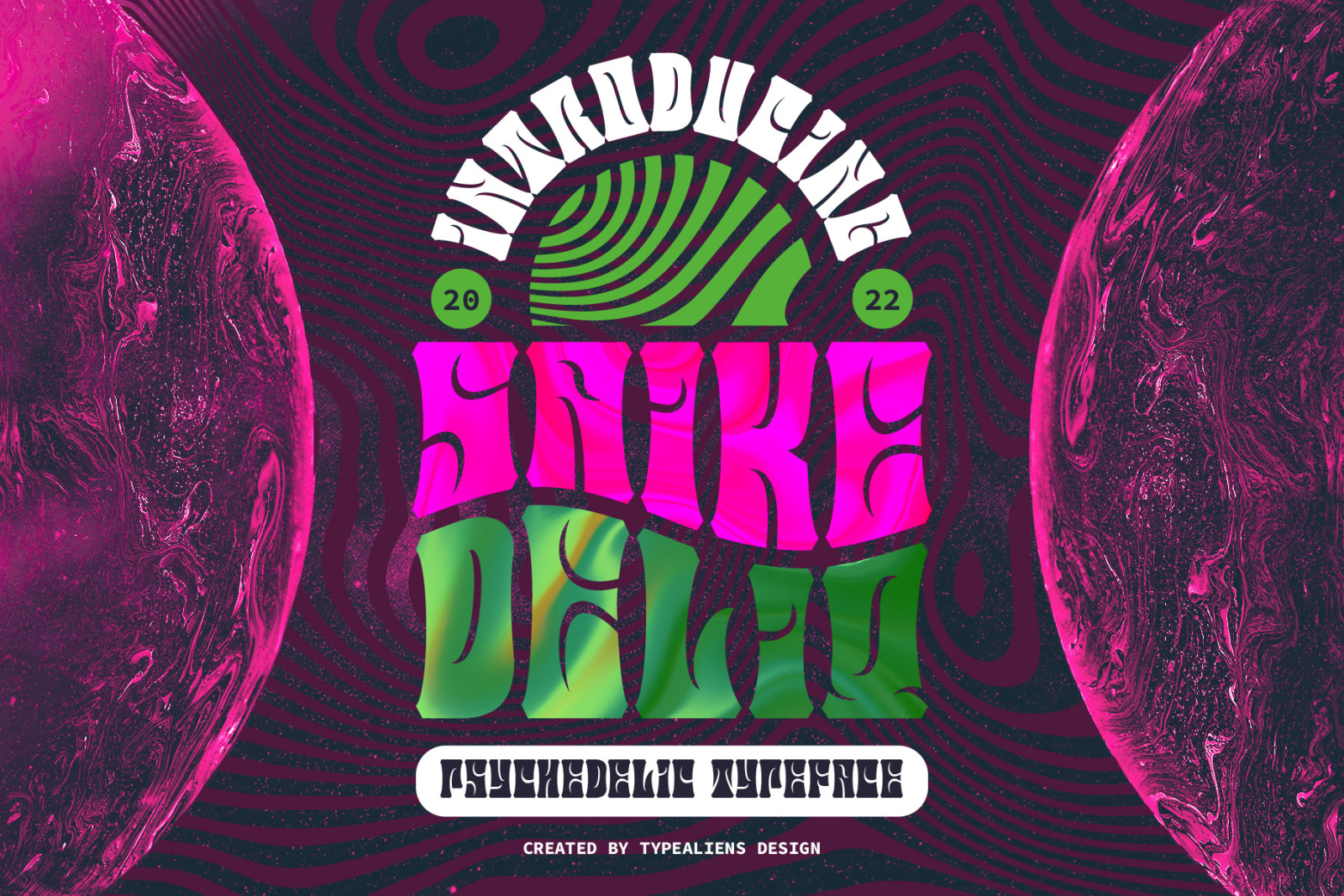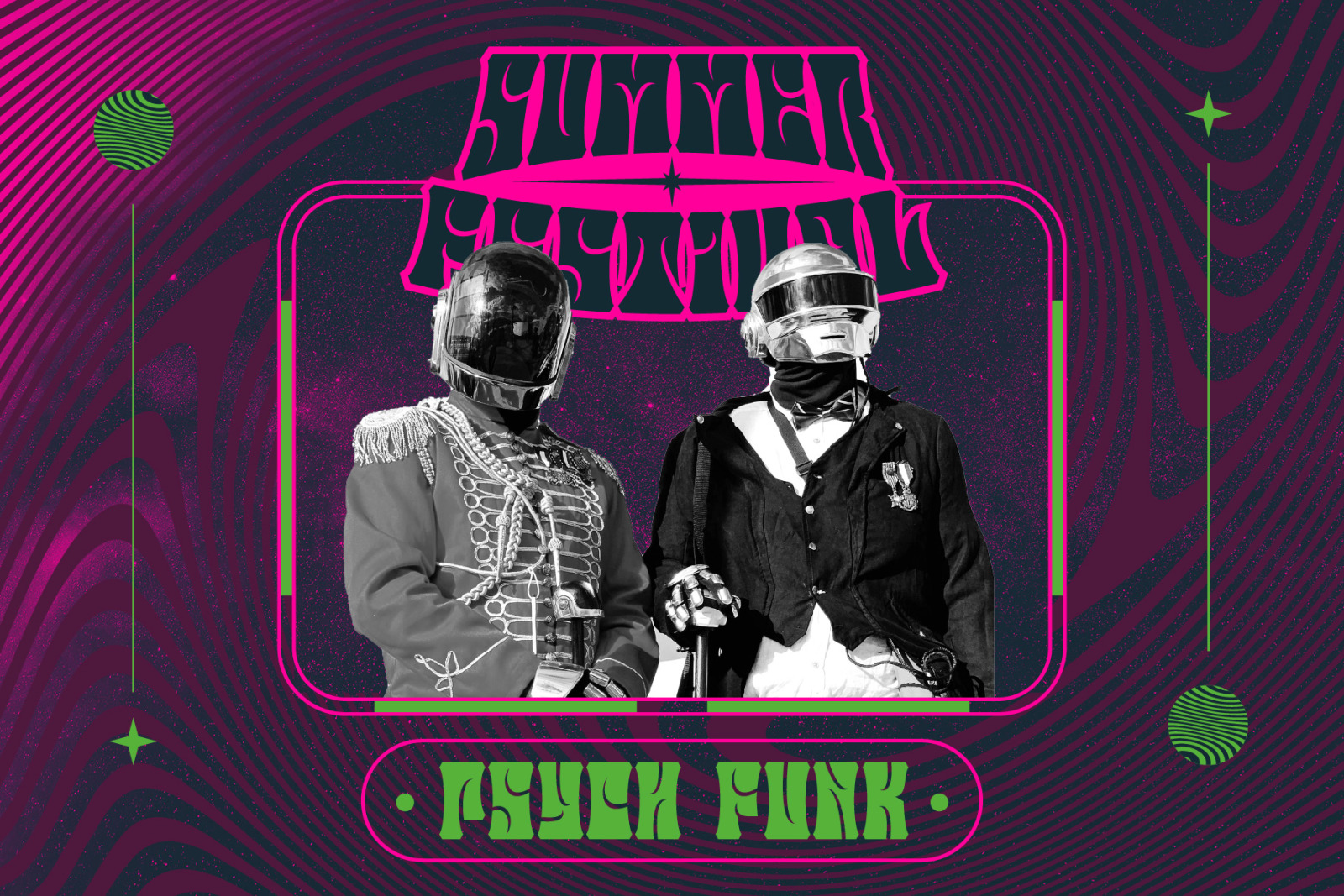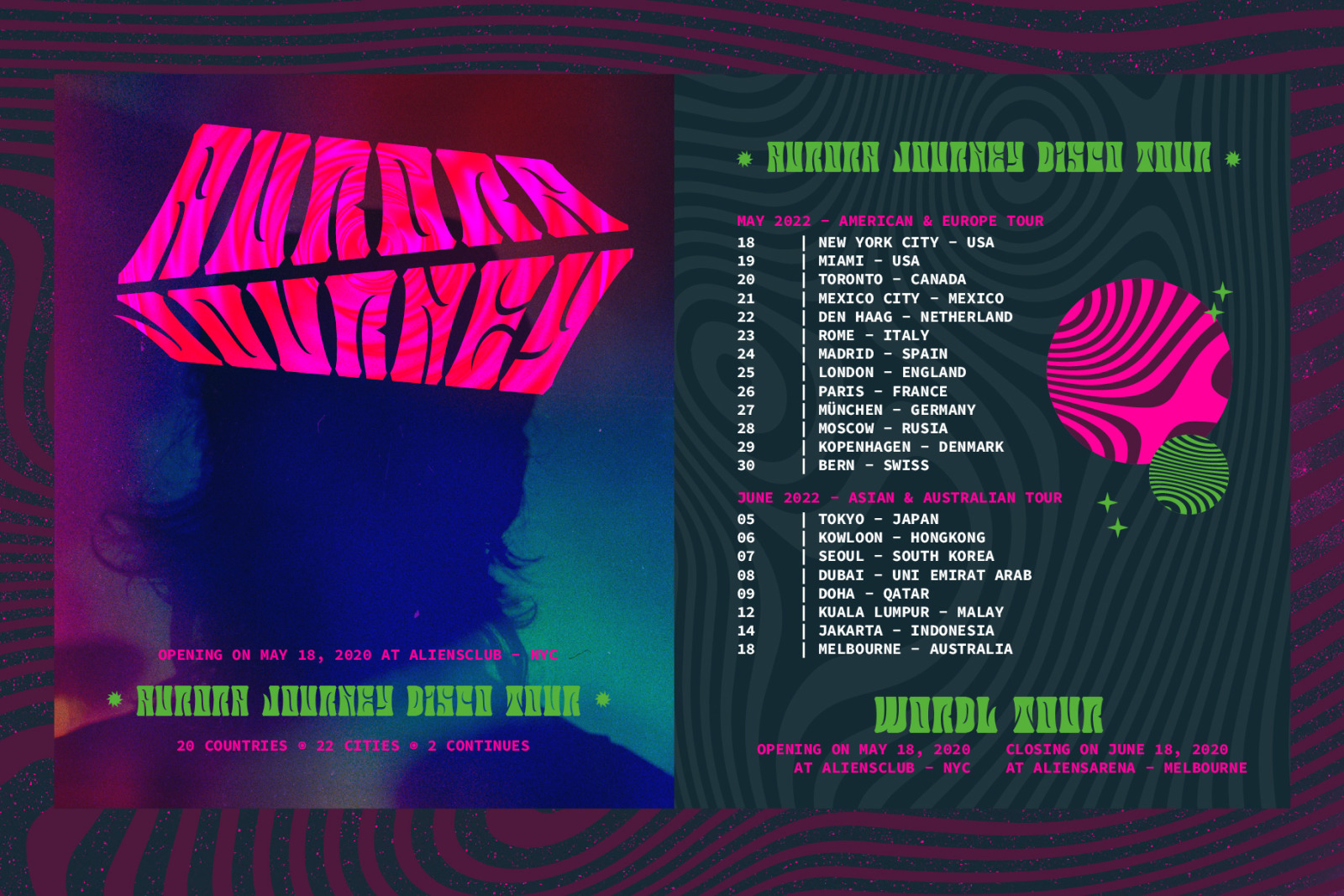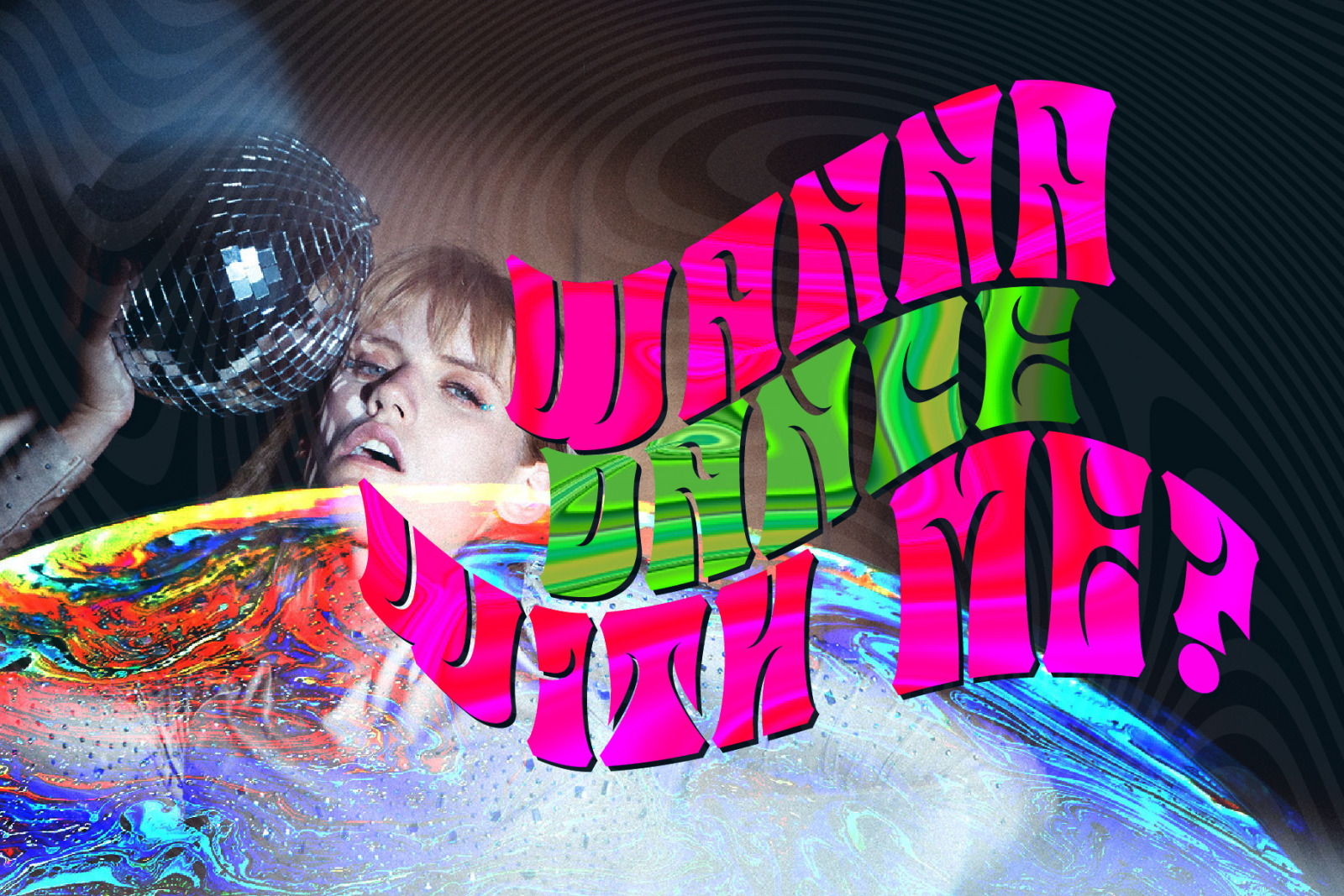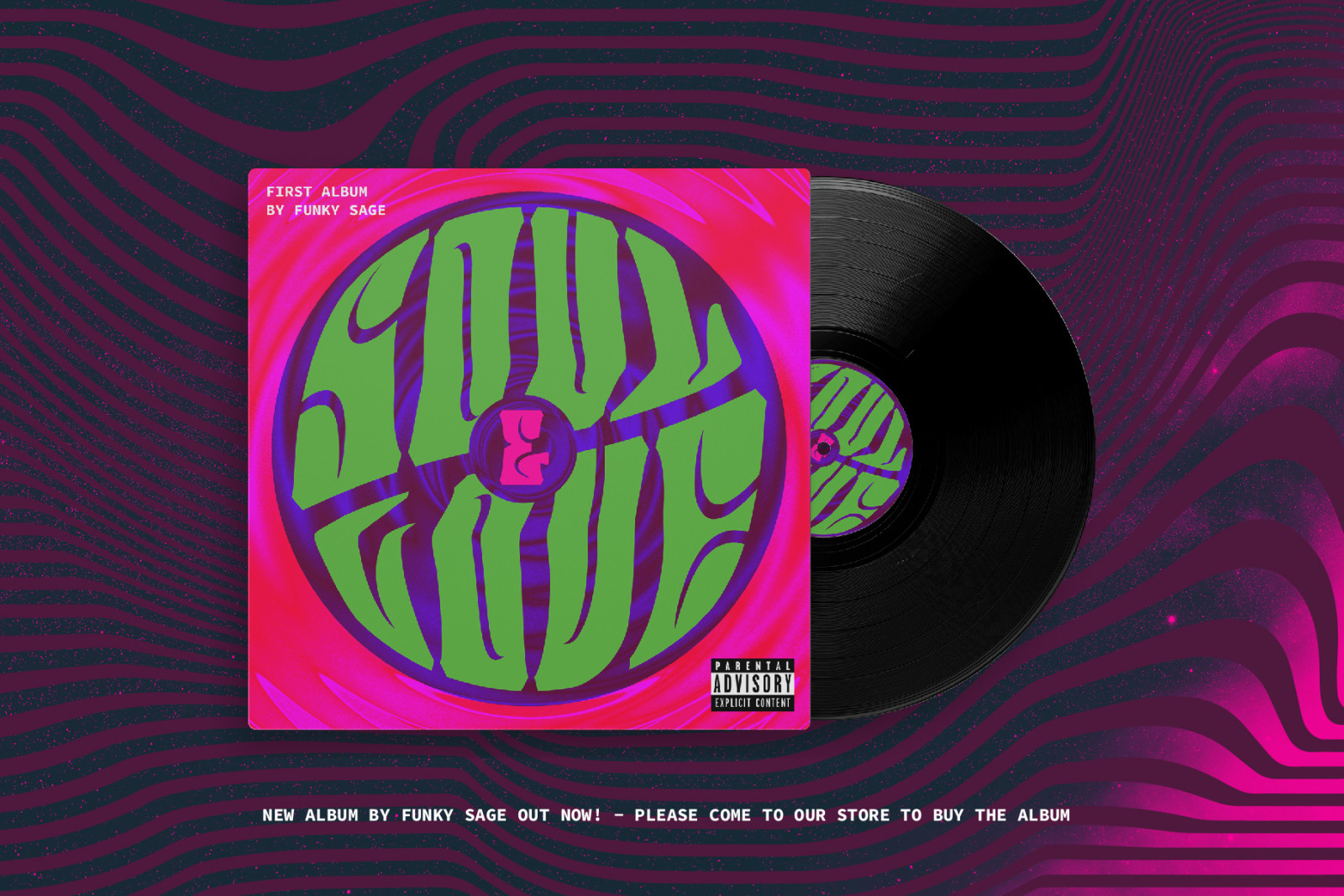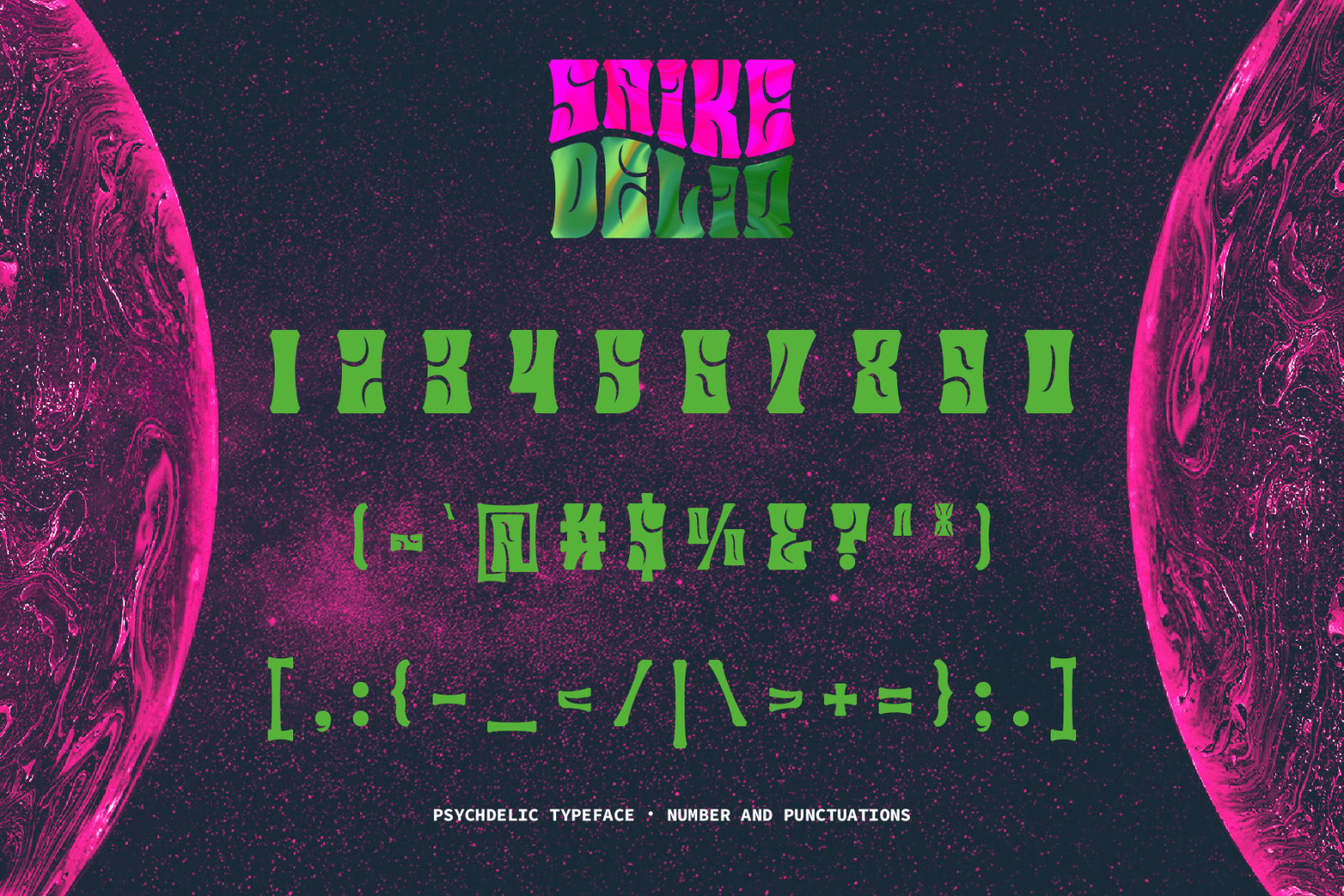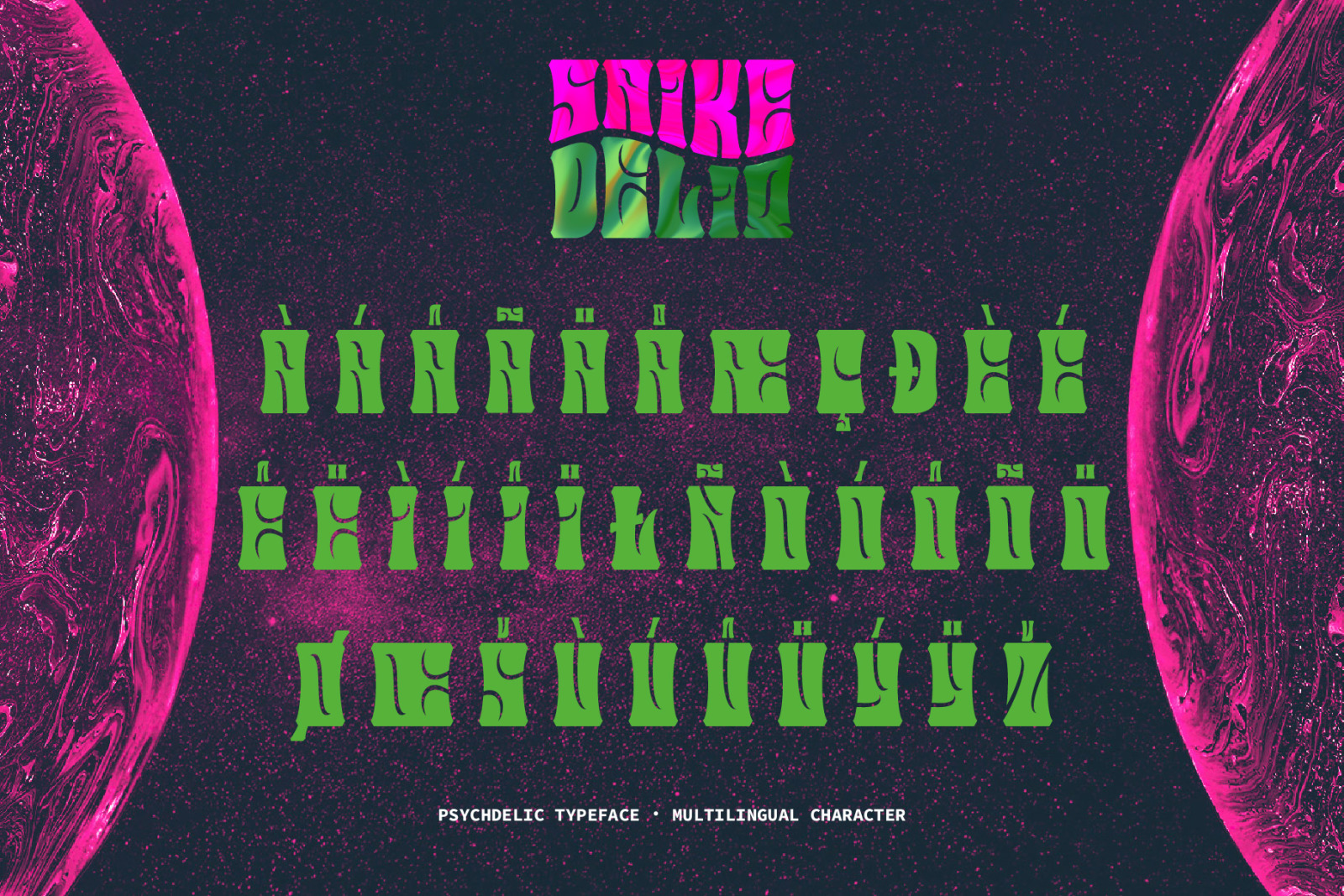
Saike Deliq Font
SAIKE DELIQ is an all caps font in a psychedelic style. Unique fonts are perfect for music poster designs or for fashion branding. We try to apply a font inspired by the psychedelic style that is identical to the twisty shape. We try to apply it to the basic shape of the box adjusted to the basic shape of the alphabet so that it produces a typeface that is thick and stiff but still contains psychedelic elements.